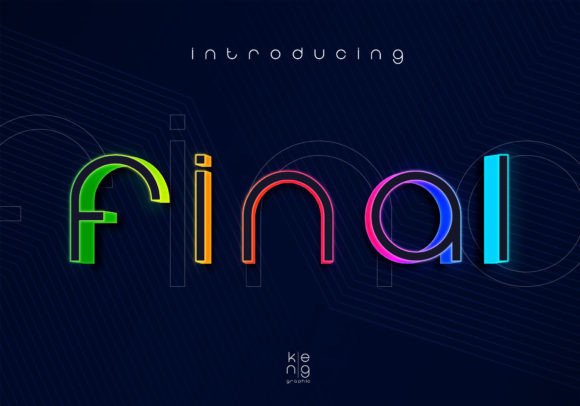
Introducing Final Font, the ultimate display font for laser metal projects! Its sleek and modern design, paired with expressive characters, adds a touch of whimsy to your creative projects. Unlock your imagination and watch your designs come to life with Final Font.
With Final Font, you'll embark on a typographic journey like no other. Its carefully crafted characters add a personal touch to your laser metal creations, evoking a sense of wonder and intrigue. It's the perfect font for those seeking a font that's both elegant and captivating.
Step into a world where creativity knows no bounds. Final Font empowers you to create designs that leave a lasting impression. From eye-catching logos to personalized gifts, the possibilities are endless. Unleash your inner artist and transform your laser metal projects into masterpieces that resonate with your audience.
Final Font is your passport to a world of endless possibilities. Its versatility allows you to explore a wide range of styles, from classic to contemporary. Whether you're a seasoned designer or just starting out, Final Font is the perfect tool to bring your creative visions to life.
Elevate your laser metal projects with Final Font and experience the difference. Embrace the beauty of typography and let your designs shine brighter than ever before. Join the creative revolution and see why Final Font is the font of choice for those who dare to be different.